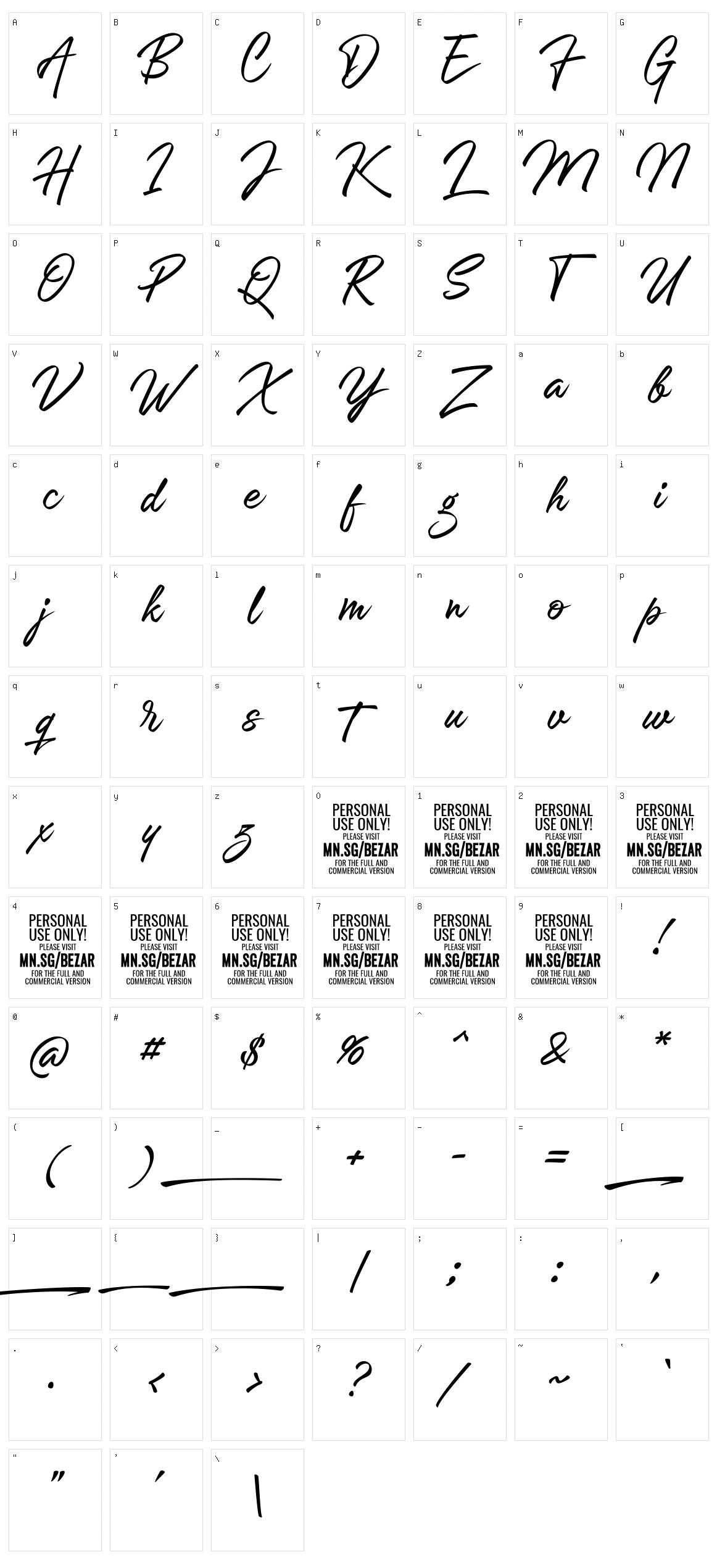
Bezar is a wild brush script font drawn and created by Mans Greback in 2020.
A handwriting of extreme speed, this typeface will give your graphic project both the action and the character to stand out.
Use it for whimsical headlines, a product logotype or anywhere where a bright-spirited, flowing script could lift the layout.
Its multiple alternates and ligatures makes for a customizable, non-static typeface.
Use [ ] { } _ anywhere in a word to create a swash.
Example: Ham}burg
The font has extensive lingual support, covering all European Latin scripts.
It contains all characters you'll ever need, including all punctuation and numbers.
Bezar is built with advanced OpenType functionality and has a guaranteed top-notch quality, containing stylistic and contextual alternates, ligatures and more features; all to give you full control and customizability.
It has extensive lingual support, covering all European Latin-based languages.
It contains all characters and symbols you'll ever need, including all punctuation and numbers.